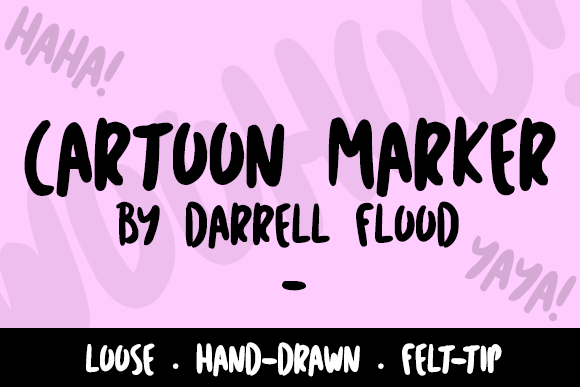
Cartoon Marker Font
About Cartoon Marker Font
Cartoon Marker is a lovely hand drawn font, with loose yet energetic strokes. Perfect for displays, Cartoon Maker can add some charm to your projects and designs.